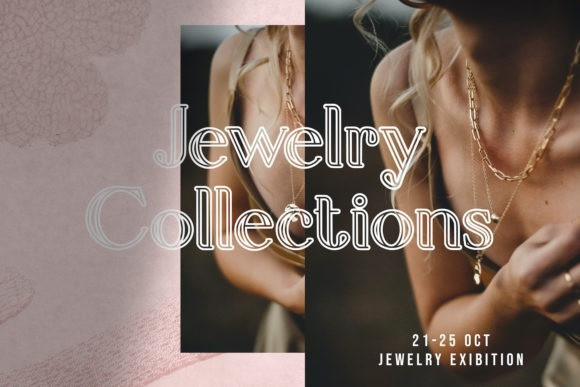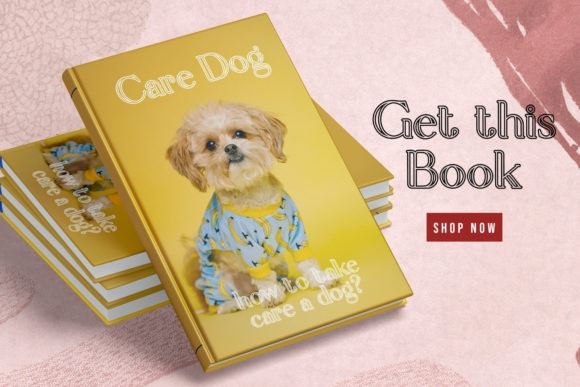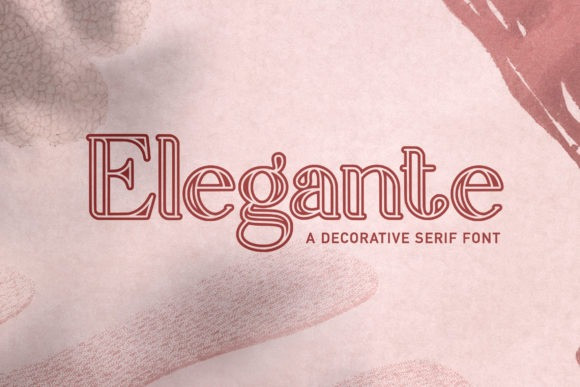
Elegante Font
Elegante Font is a unique, stylish and modern serif font. This playful typeface will look truly outstanding in a wide range of contexts. Use Elegante for your designs and explore its endless possibilities.